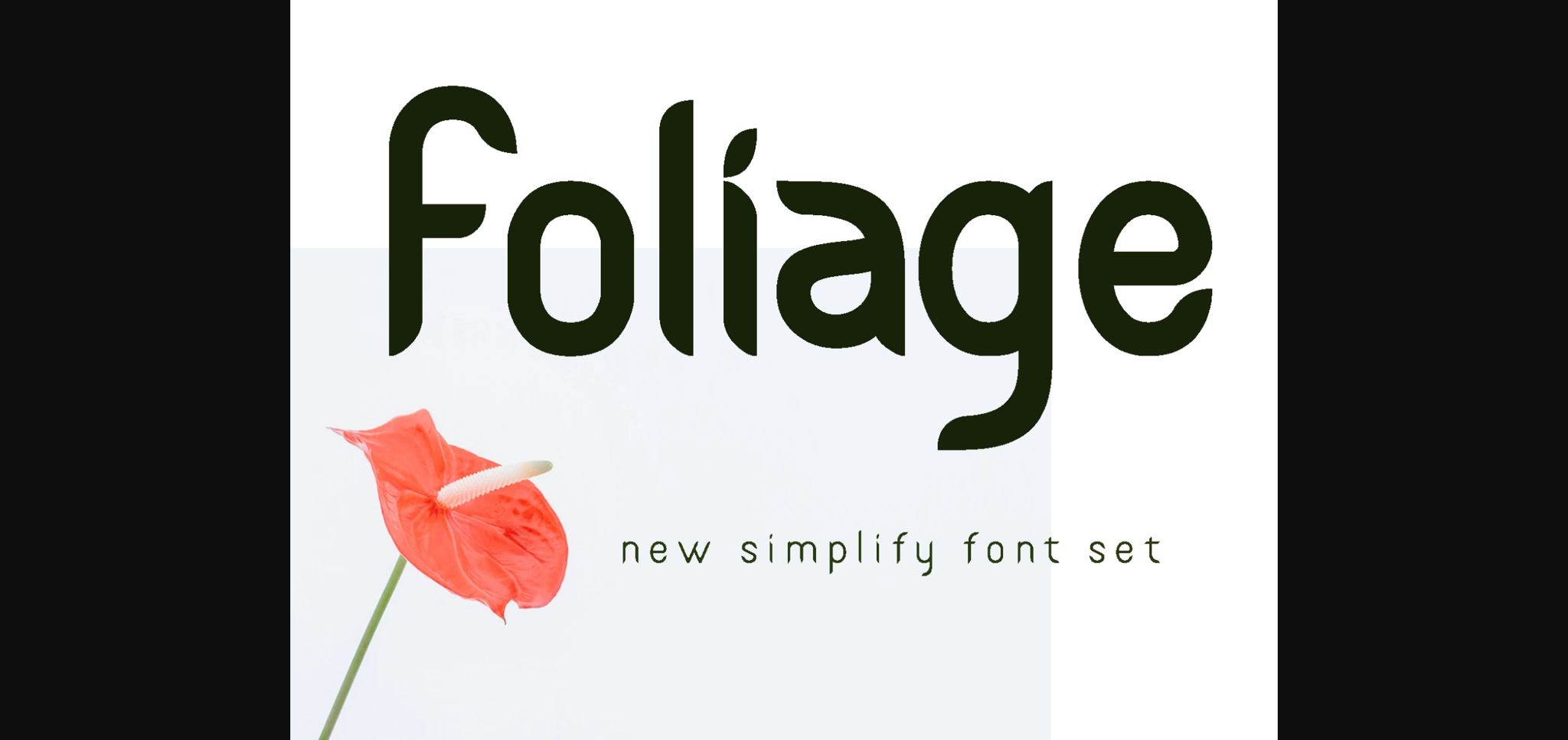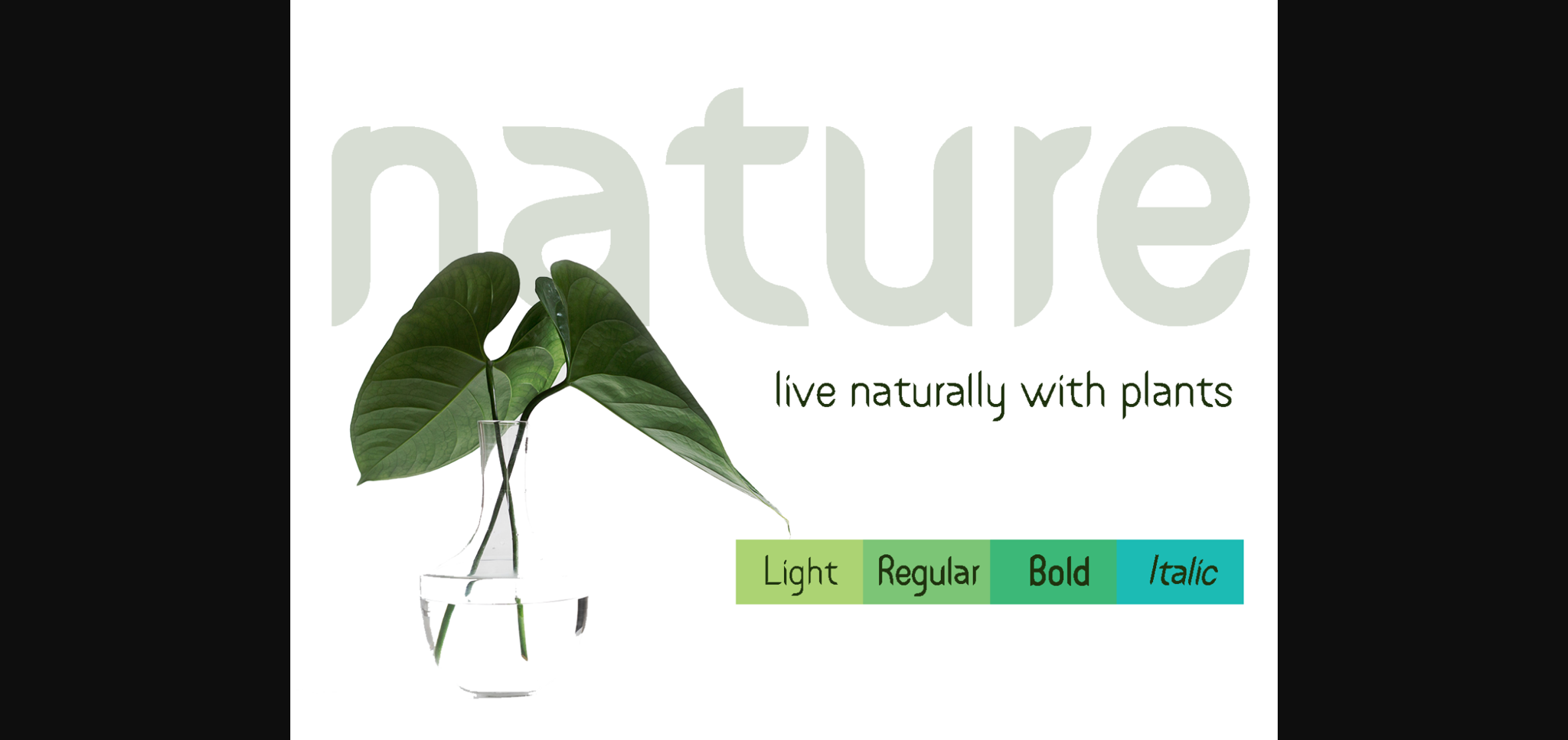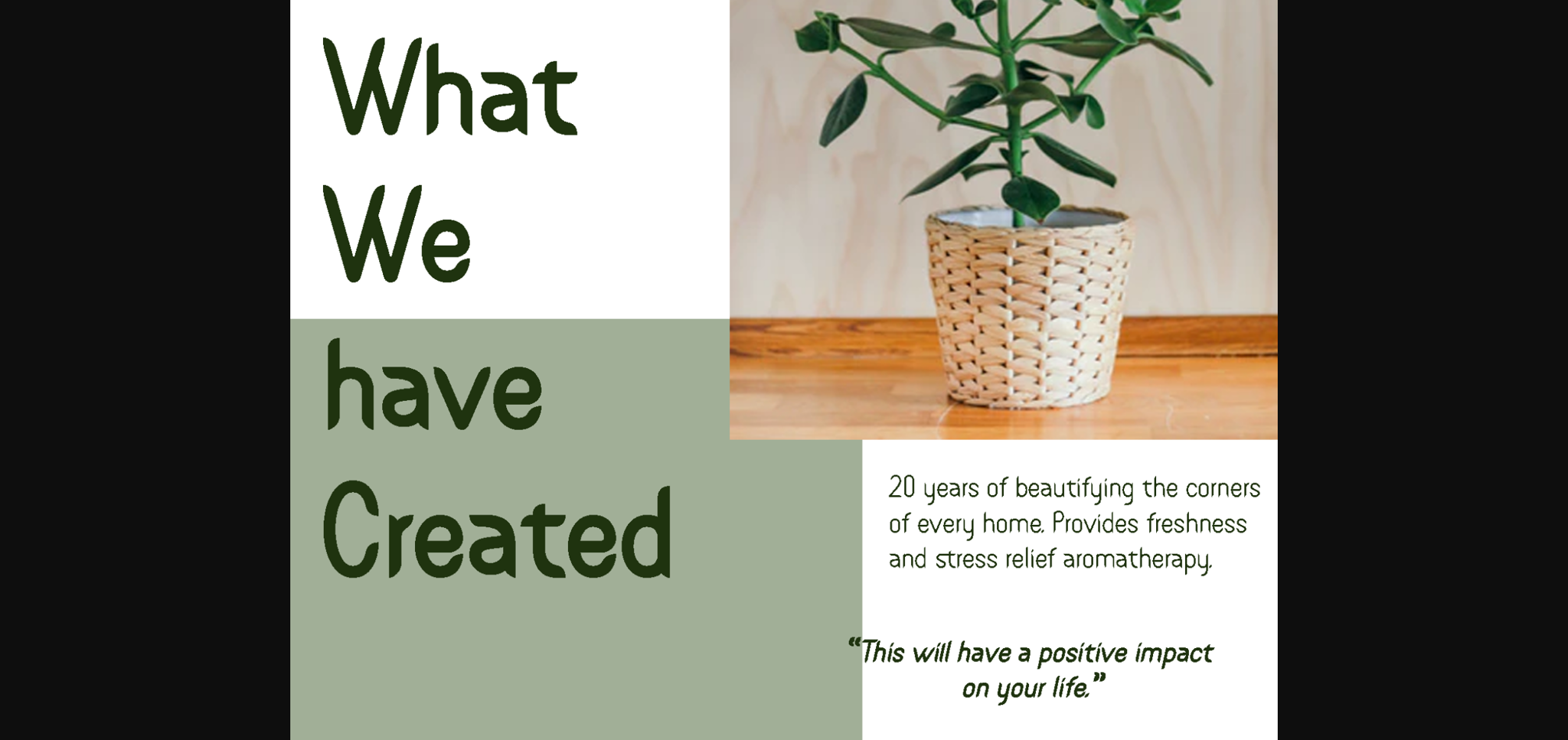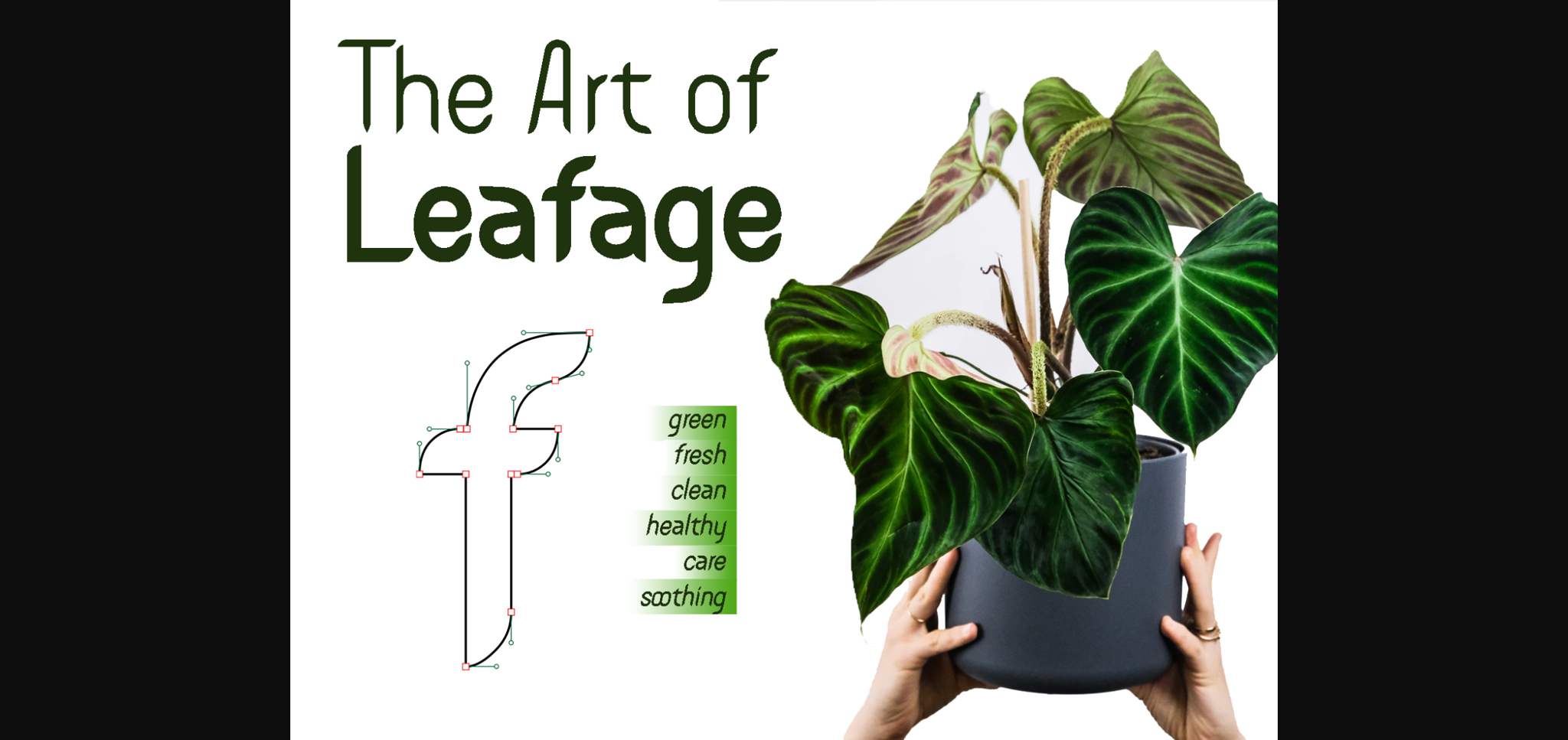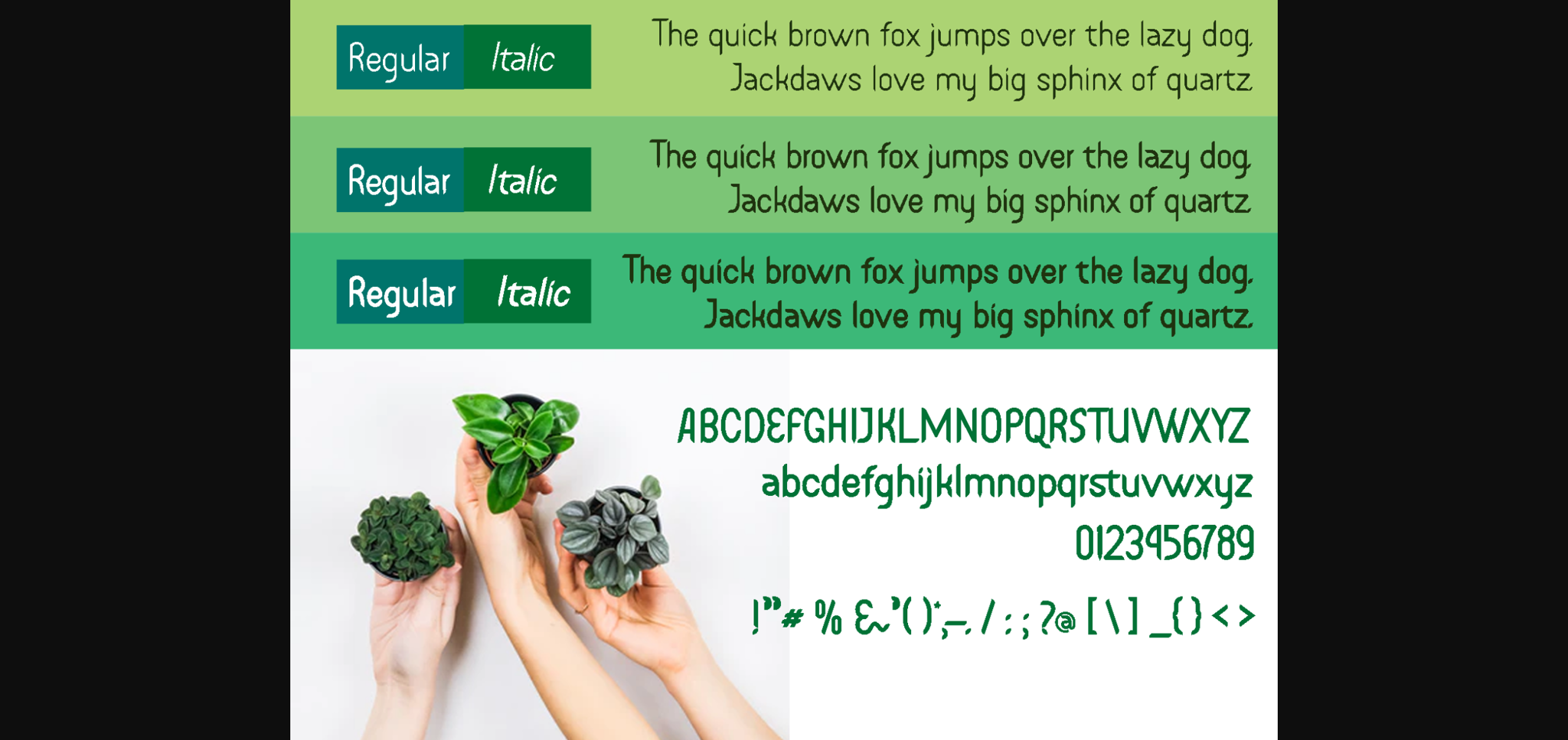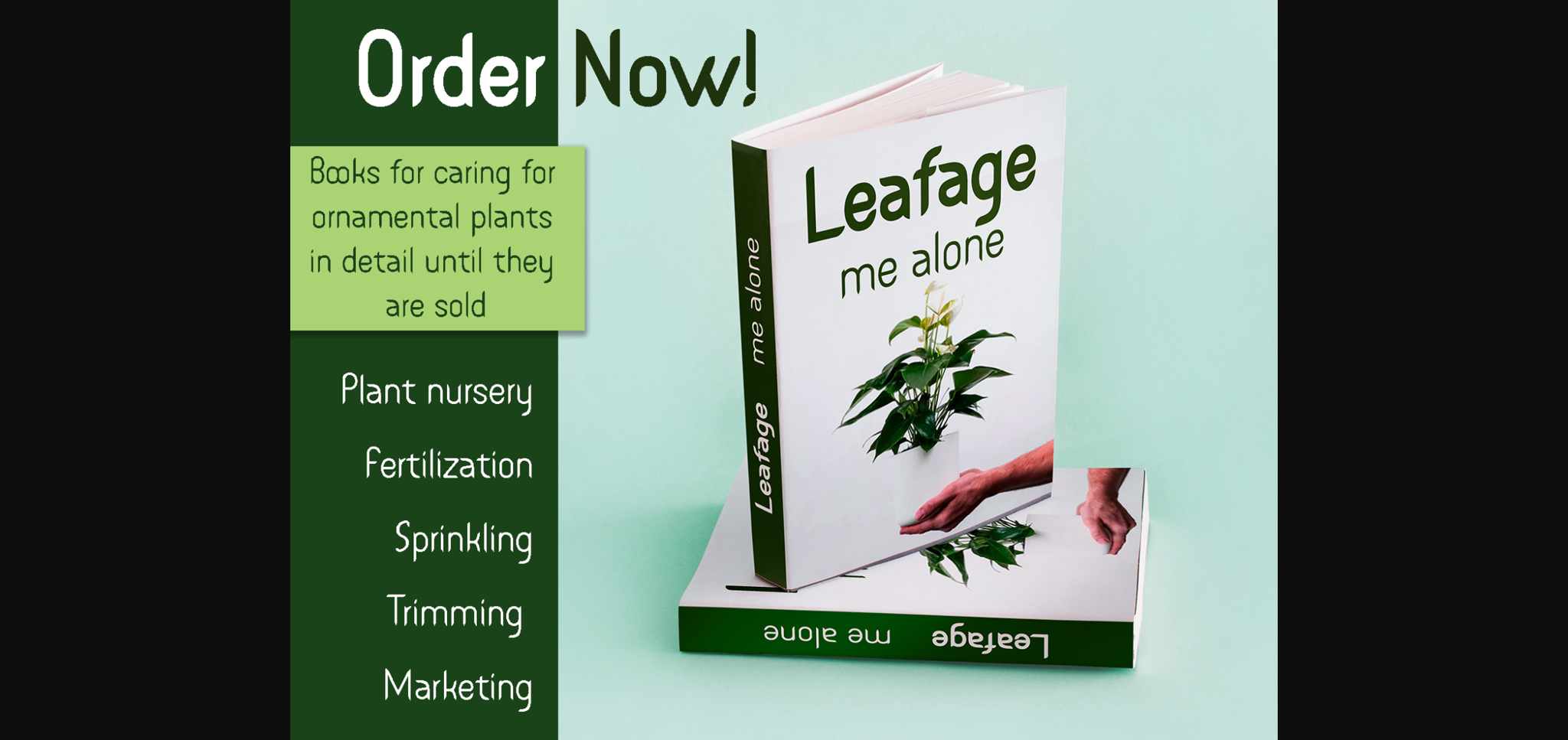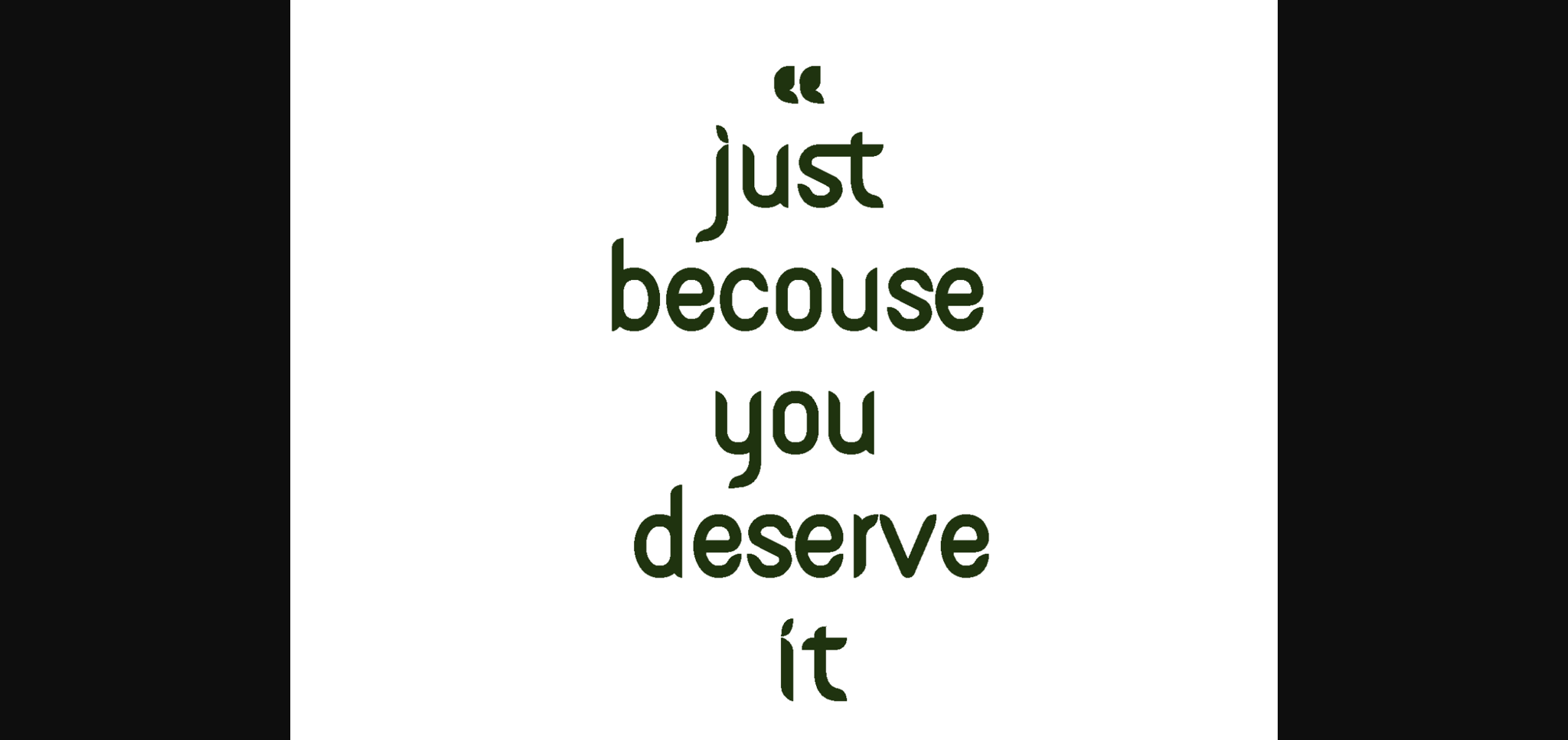
HomeSans Serif FontsFoliage Font Sans Serif Fonts Foliage Font FacebookXPinterestWhatsApp 1 of 9 ... Foliage Font Poster 2... Foliage Font Poster 3... Foliage Font Poster 4... Foliage Font Poster 5... Foliage Font Poster 6... Foliage Font Poster 7... Foliage Font Poster 8... Foliage Font Poster 9... About Foliage Font Foliage is a modern, sharp styled sans serif font. Simple but with a strong visual effect, this font will instantly make your creation more attractive than others. DOWNLOAD NOW People also explored Ragnic Font Girls Oliver Font My Valentine Font Silly Peanut Font Hefithage Font Alloen Layla Font Operashi Font Fishing Font 264 0 TagsFoliageFoliage Font Previous articleUrial FontNext articleMeteor Font LEAVE A REPLY Cancel reply Comment: Please enter your comment! Name:* Please enter your name here Email:* You have entered an incorrect email address! Please enter your email address here Website: Save my name, email, and website in this browser for the next time I comment. Personal Use Free Bollado Personal Use Free Read more about this font Gupis Personal Use Free Read more about this font Happy Garden Personal Use Free Read more about this font Lumber Personal Use Free Read more about this font BLOG Using Fonts in Digital Marketing: Tips to Strengthen Your Brand Identity In the realm of digital marketing, every visual element plays a crucial role in shaping a brand's identity, and fonts are no exception. The... Transform Your Website: Elevate Your Typography with 7 Best Web Font Generators Exploring Font Trends Best Fonts for T-Shirt Design – Top 2025 Picks